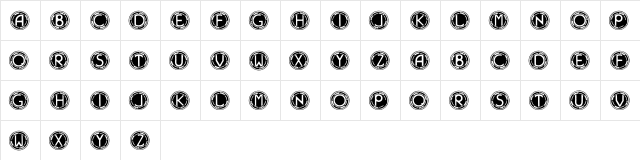
NavyBlues Regular Font Preview
NavyBlues Regular
Design Context for NavyBlues Typeface
NavyBlues is a composed and adaptable typeface that performs quietly and consistently across a wide range of design contexts.